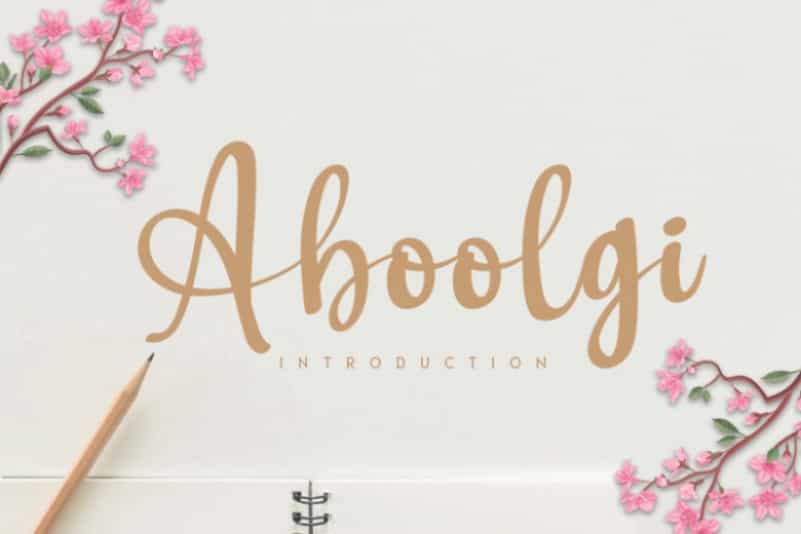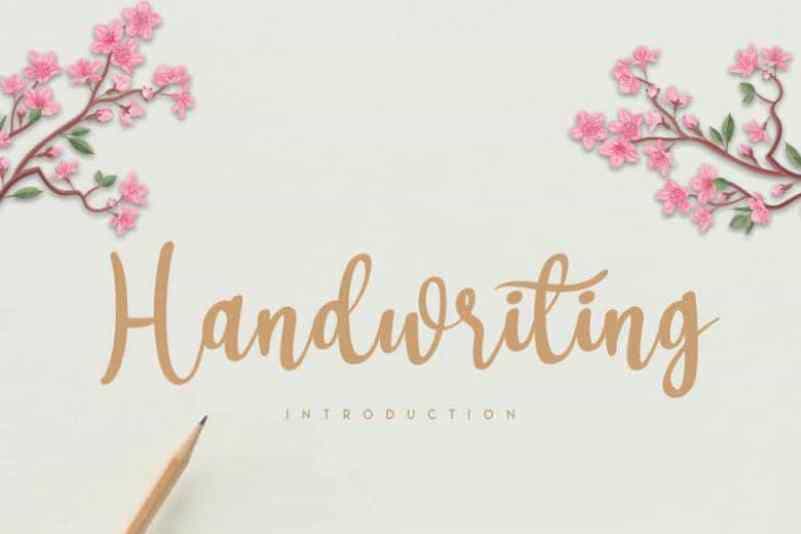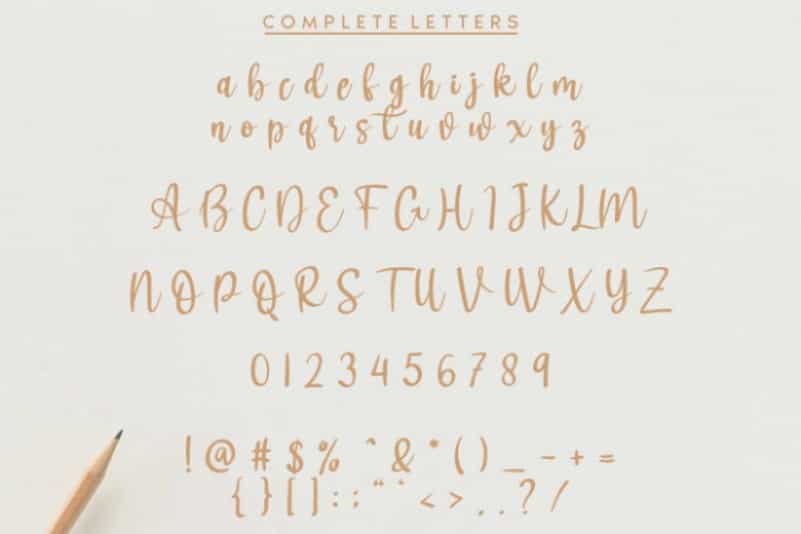
Aboolgi is a fresh font designed like a fluid written font is defined and described to have elegant touches for all the beloved projects. You will simply fall in love with the design that is one-a-kind and ageless, and then use the layout to come up with magnificent designs!